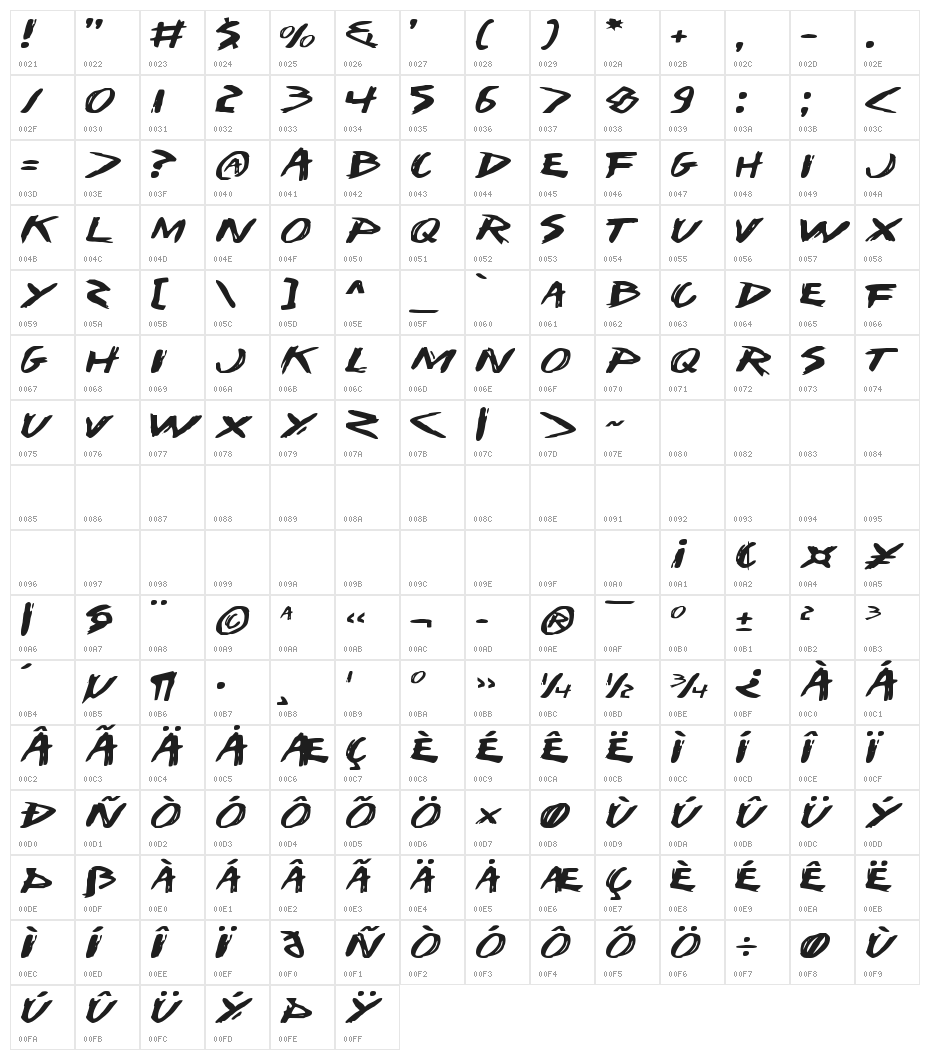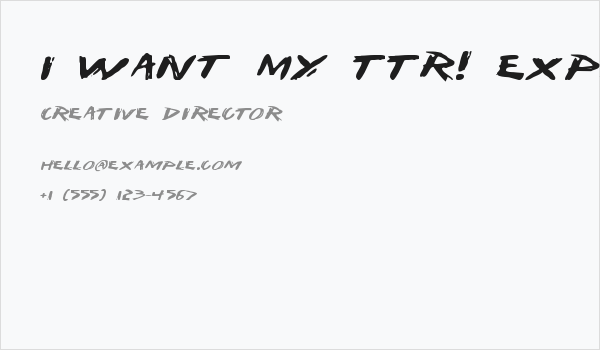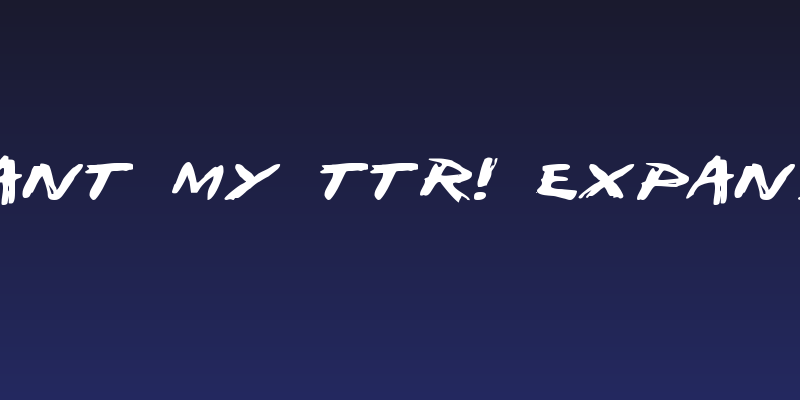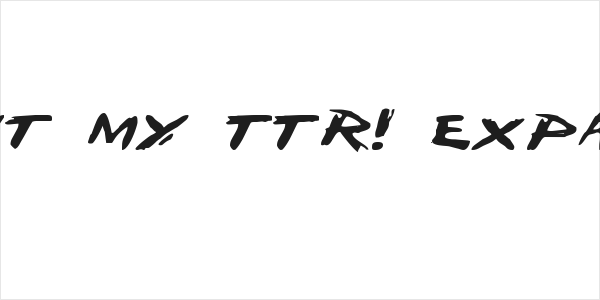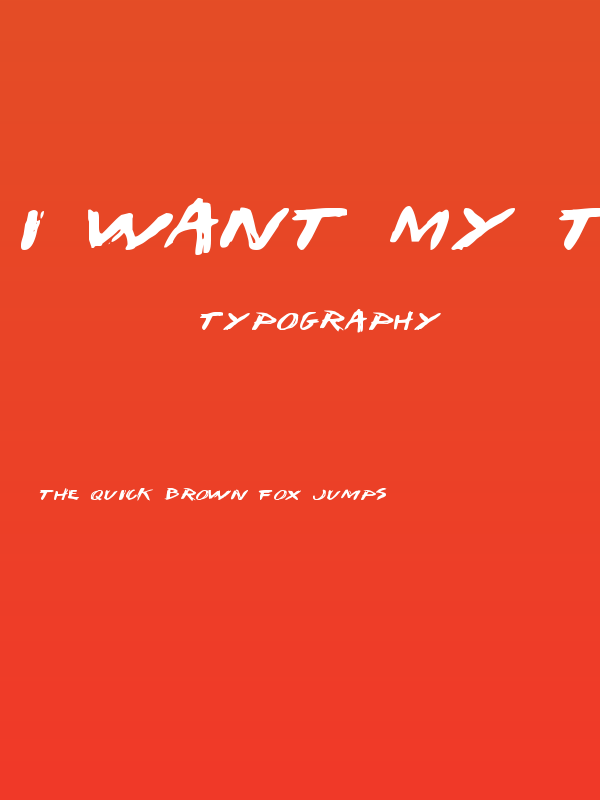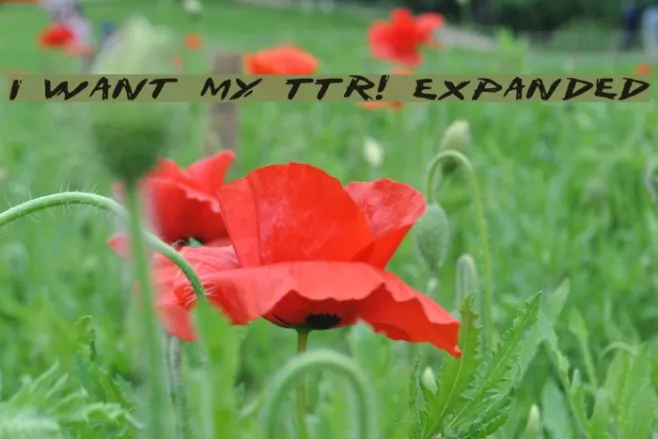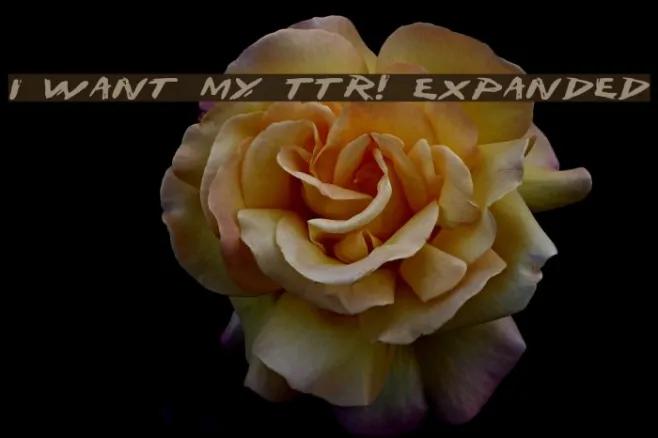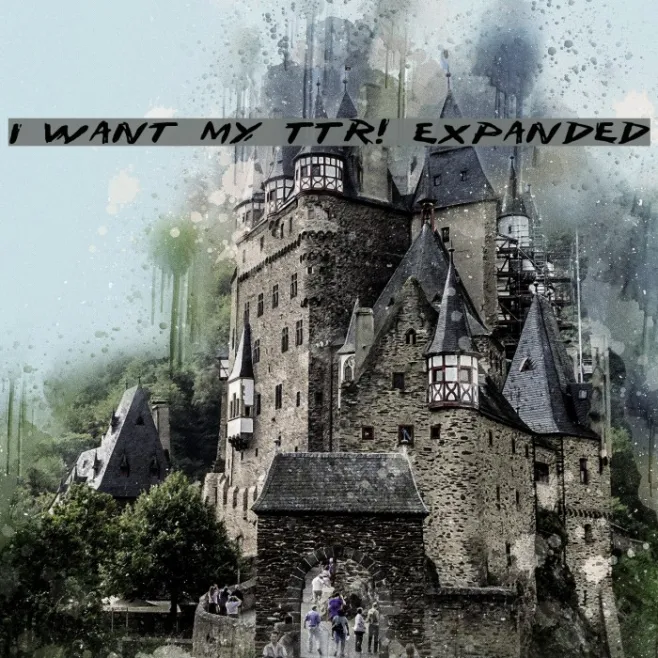
I Want My TTR! Expanded Font
I Want My TTR! Expanded Description
This font features a bold and dynamic brush script style, characterized by its energetic and expressive strokes. The letters have a hand-painted appearance, with varying thickness that adds a sense of movement and vitality. The uppercase and lowercase letters maintain a consistent style, with sharp angles and fluid curves that create a cohesive look. The numerals and special characters are equally expressive, fitting seamlessly with the overall design. This font's artistic flair makes it stand out, offering a unique and creative touch to any project.
| Proposed Projects | Ideal for creative projects such as posters, branding, packaging, and artistic invitations. |